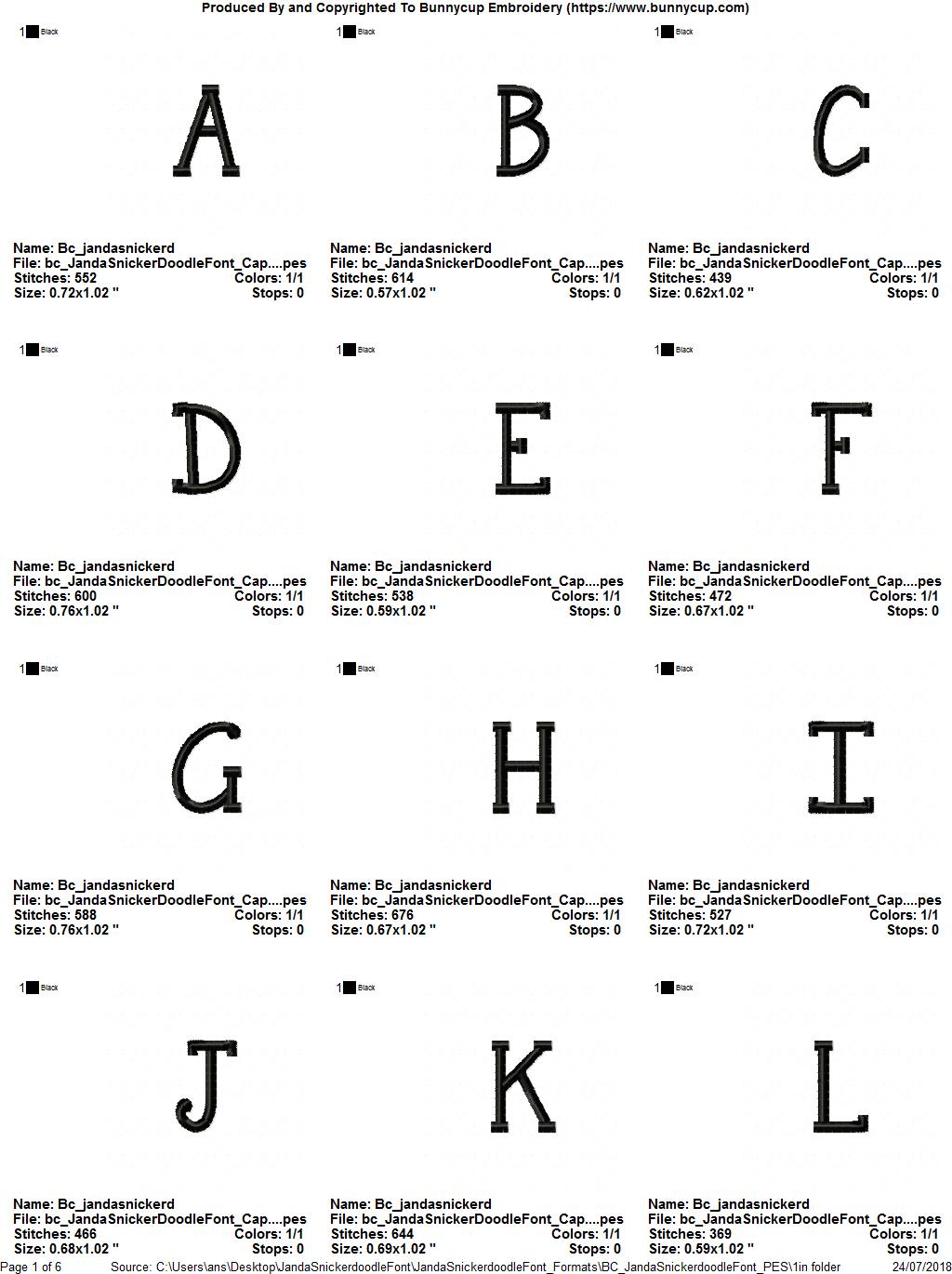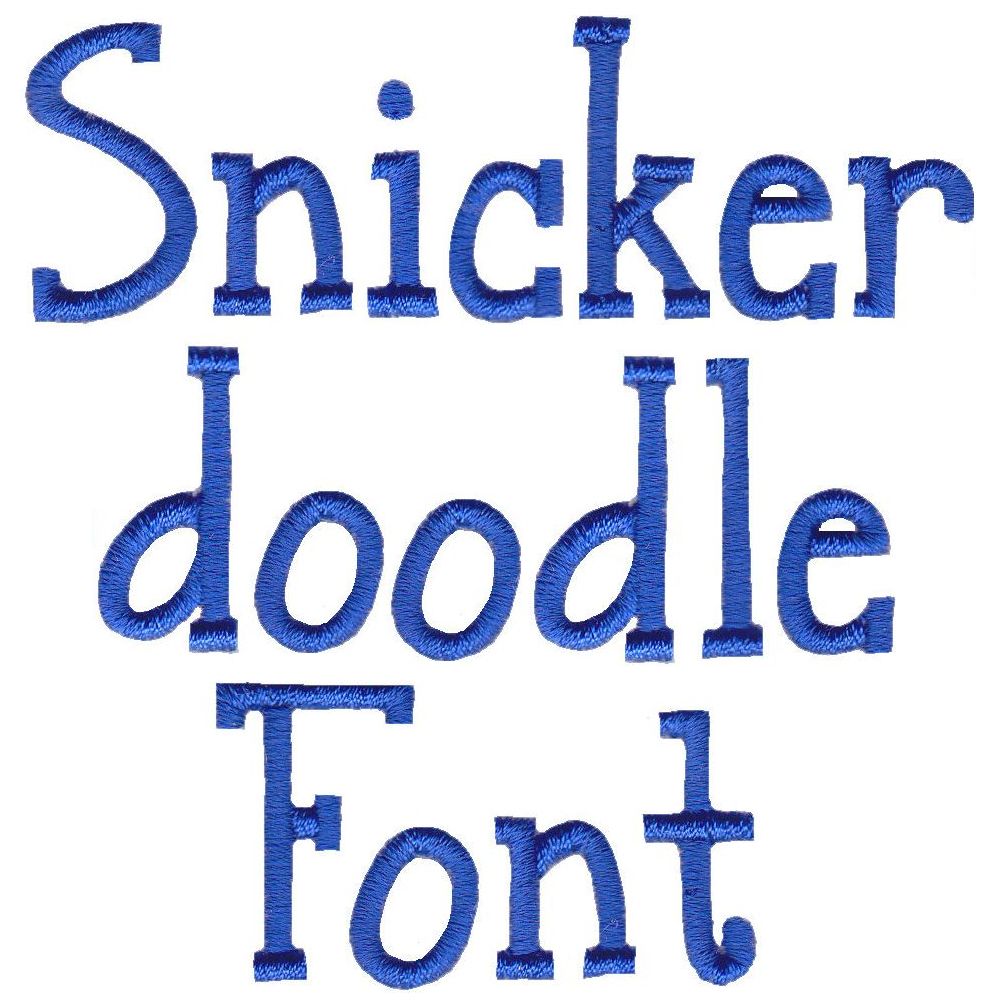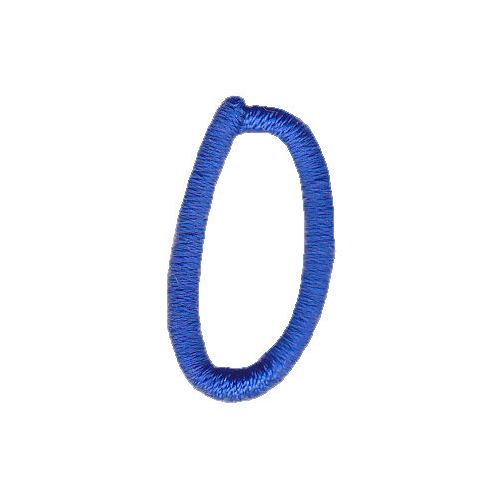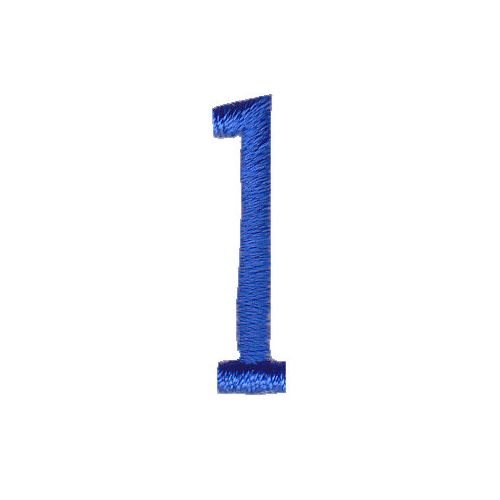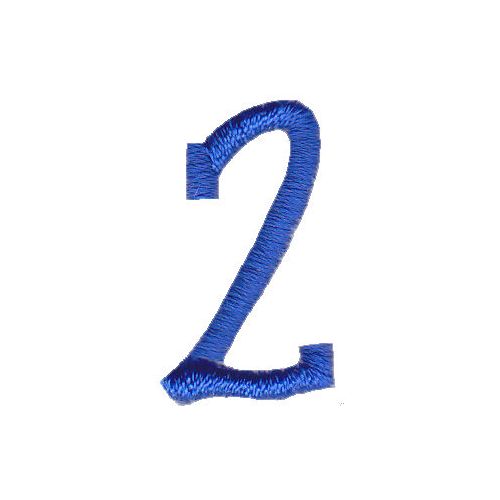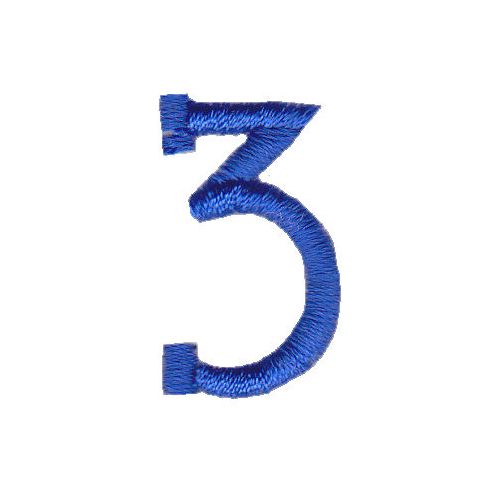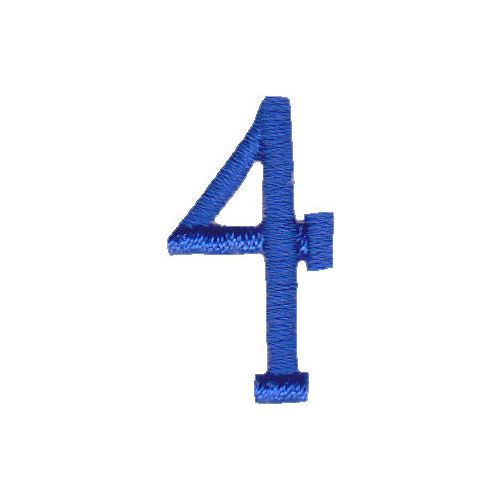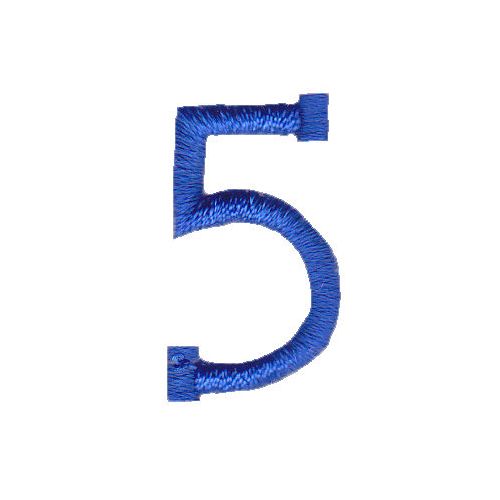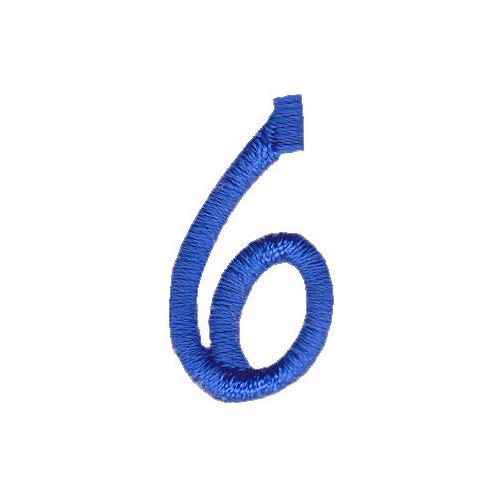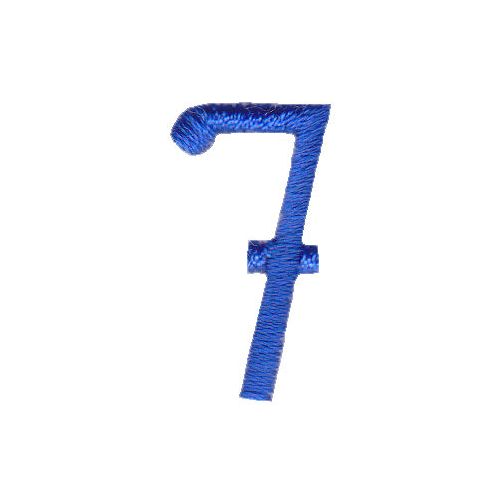
Snickerdoodle Font
Snickerdoodle Font is a neat and tidy font that comes in 5 great sizes - 1 Inch, 1.25 Inches, 1.5 Inches, 1.75 Inches and 2 Inches. The font includes Capitals, Lower Case and Numbers as displayed. BX files are also included for use with the Embrilliance software when purchasing the full alphabet set. Just choose your machine format, and the BX files will be included with your machine format files. See our full range of